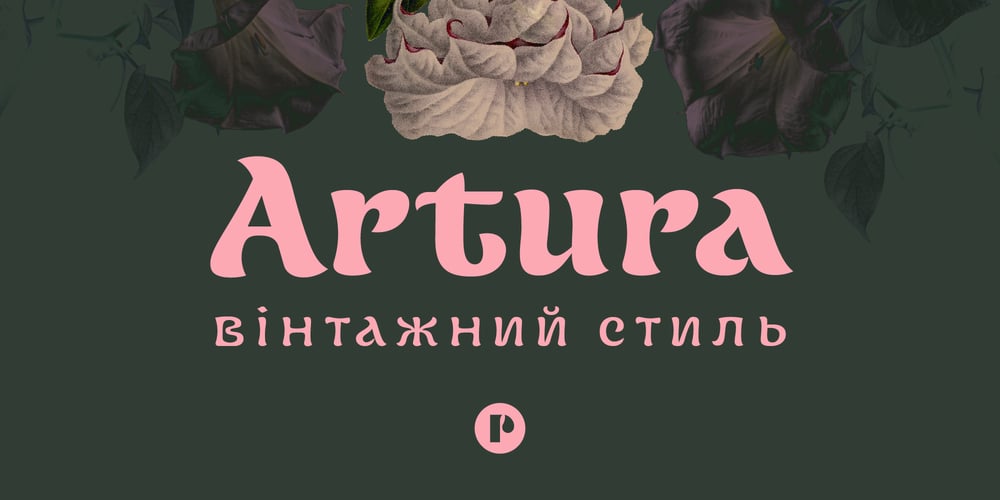
Artura
Artura font
Artura Font Family was designed by Pedro Medina-Leandry and published by Pedroglifos. Artura contains 2 styles and family package options. The form of unruly strokes Datura blossomed from a longing to break away from the rigid rules of sans serifs that governed my previous project. After countless hours lost in the world of straight lines, I yearned for the gentle flow of curves and carefree strokes —akin to the unruly growth of plants in my garden. Drawing inspiration from uncial typography, where letters were once shaped with graceful, circular movements, I aimed to infuse Datura with a sense of natural spontaneity. Each glyph in Datura boasts its own unique structure, with some embracing wild, untamed forms. Balancing the lush intricacy of the capitals, the lowercase characters provide a solid foundation, ensuring stability and readability. Datura emerges as the perfect typeface for projects seeking to channel a psychedelic vibe, where controlled chaos reigns supreme, much like a gentle microdose —striking a delicate balance between freedom and restraint.